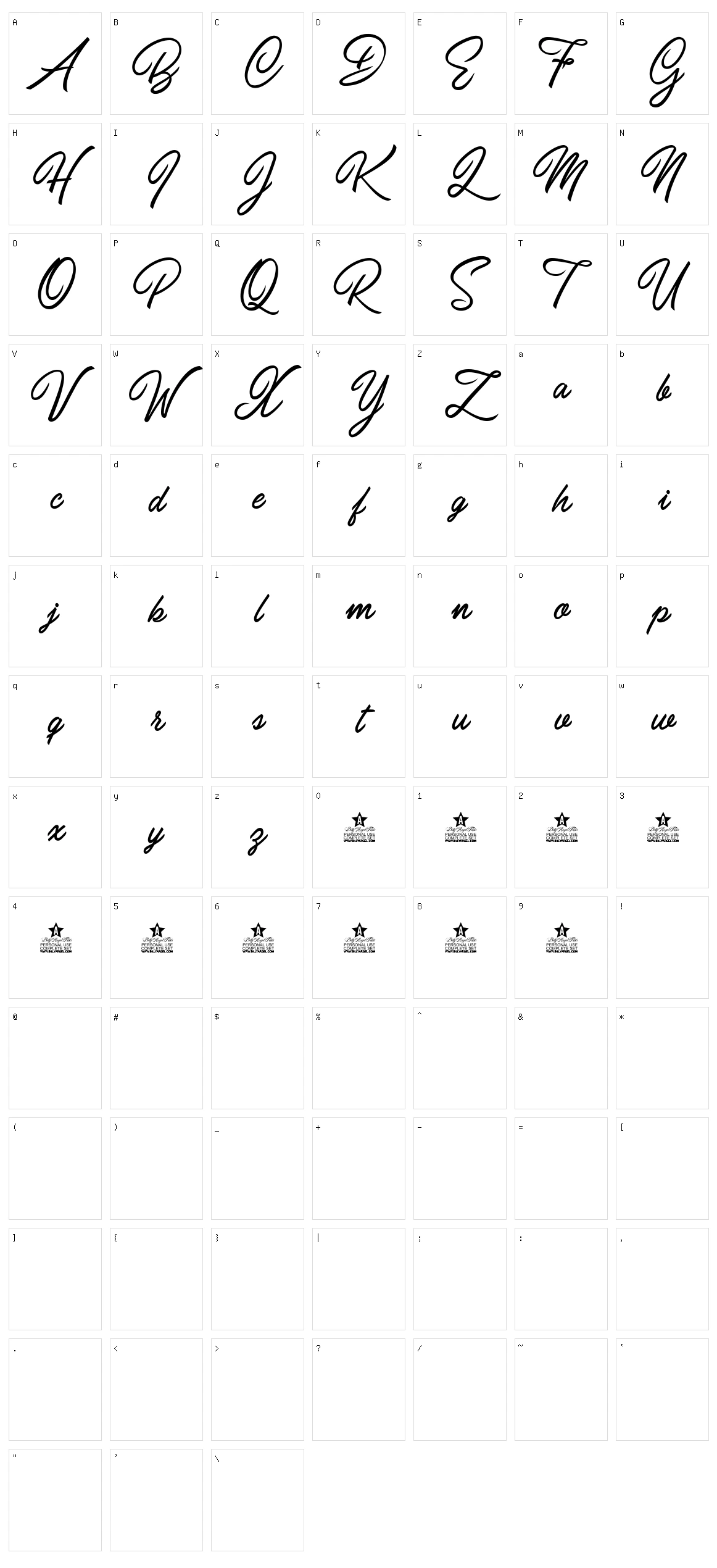
The free font Carolina Mountains is carefully designed by Billy Argel Fonts ?, showcasing a thoughtful balance of creativity and usability and falls under the Script font style. When you download the ZIP file, it contains only 496.49 KB of font files, making it lightweight and quick to download. Please review the license details below to understand permitted usage and distribution rights. If license information is not available, we recommend using this font for personal projects only or contacting the author directly for commercial usage permissions.